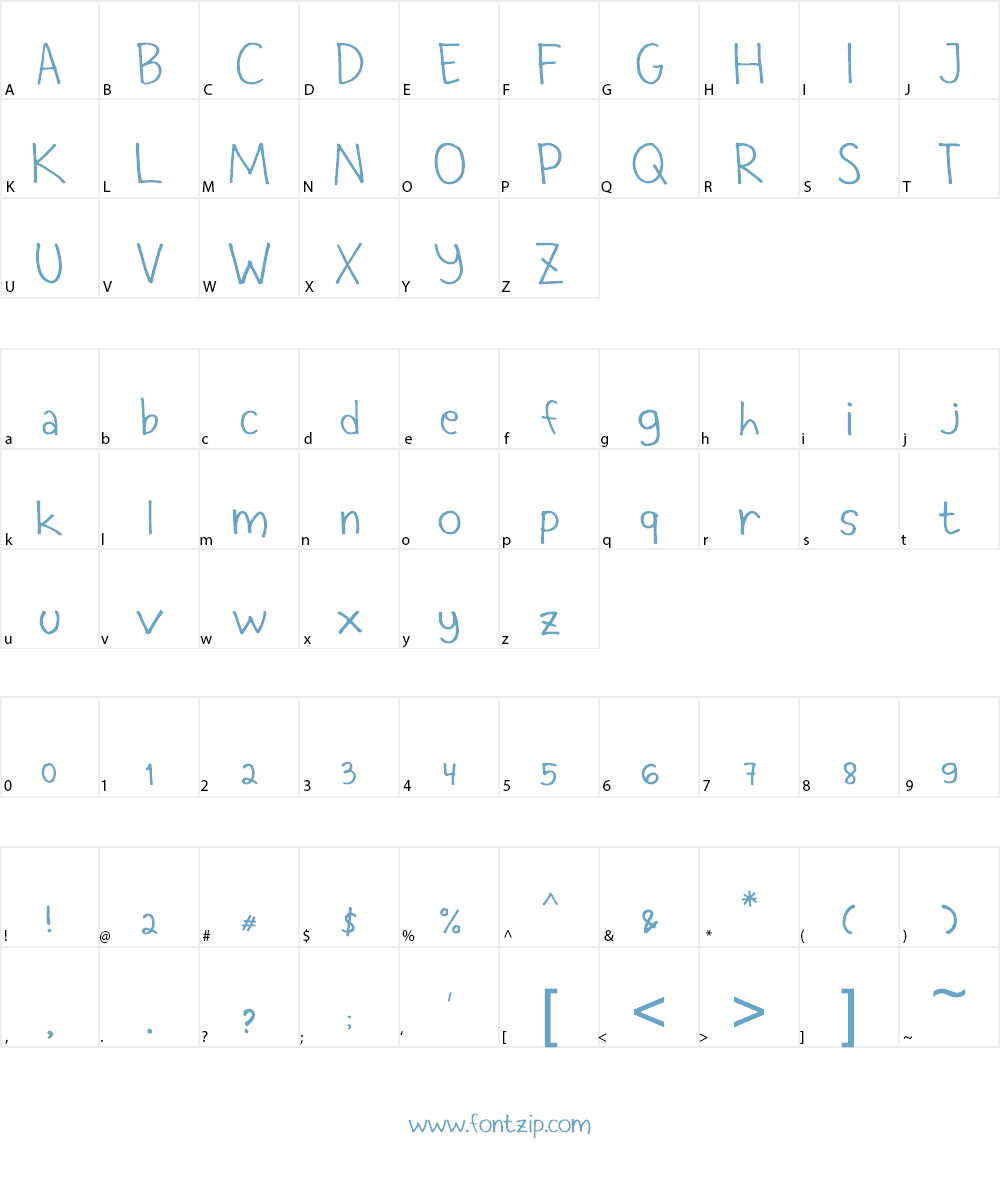
Rizen is a handwritten font made by our designer. Inspired by her daily life, this font looks perfect in invitation, e-commerce, postcard, comic, novel, website, flyer, menu design, etc. This font have a simple character so it will be awesome in everything that have a casual concept inside.